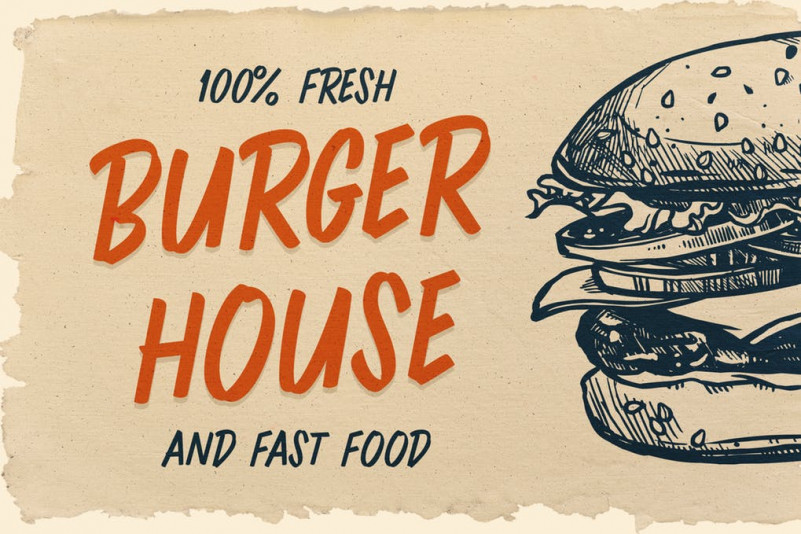
Burisc Regular Font
BURISC very suitable to use on many of your design projects such as Headlines, Signage,restaurant menus , Book Covers, , Packaging, Logotype and more.